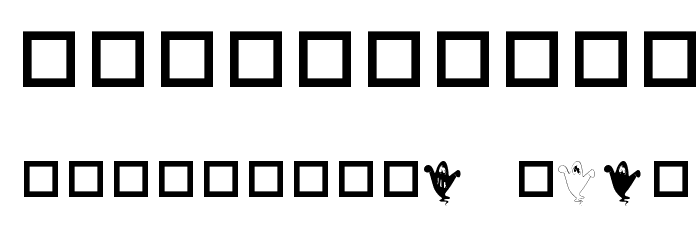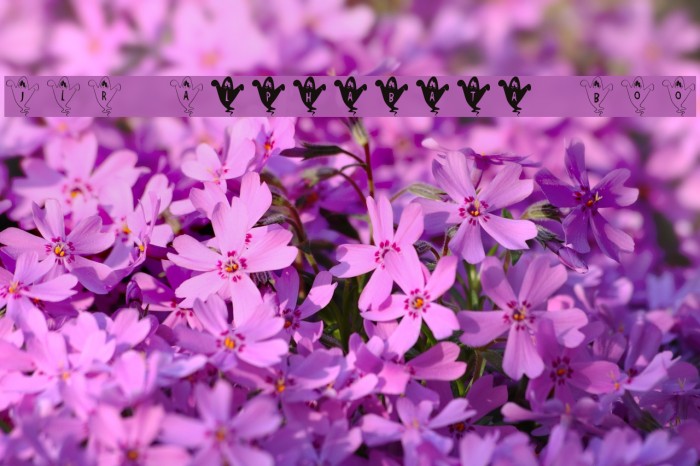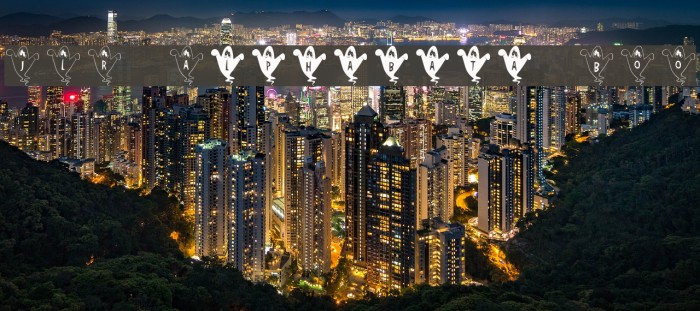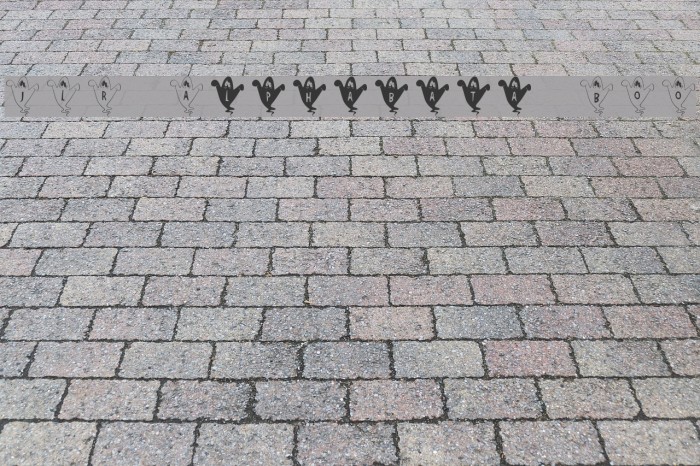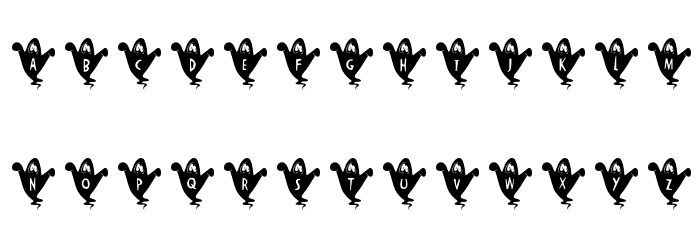
JLR Alphabata BOO! Font
JLR Alphabata BOO! Description
This playful and whimsical font features letters embedded within ghost-like figures, creating a unique and eye-catching design. Each character is enclosed in a cartoonish ghost shape, with the uppercase letters appearing in both outlined and filled styles. The font's distinctive appearance makes it ideal for themed projects, particularly those related to Halloween or other spooky occasions. The characters are evenly spaced, ensuring readability while maintaining the decorative aspect. The font's bold and creative style is perfect for capturing attention and adding a fun element to any design.
Use CaseHeadlines, Logos, Themed Designs
Proposed ProjectsIdeal for Halloween-themed invitations, party decorations, children's books, and playful branding.